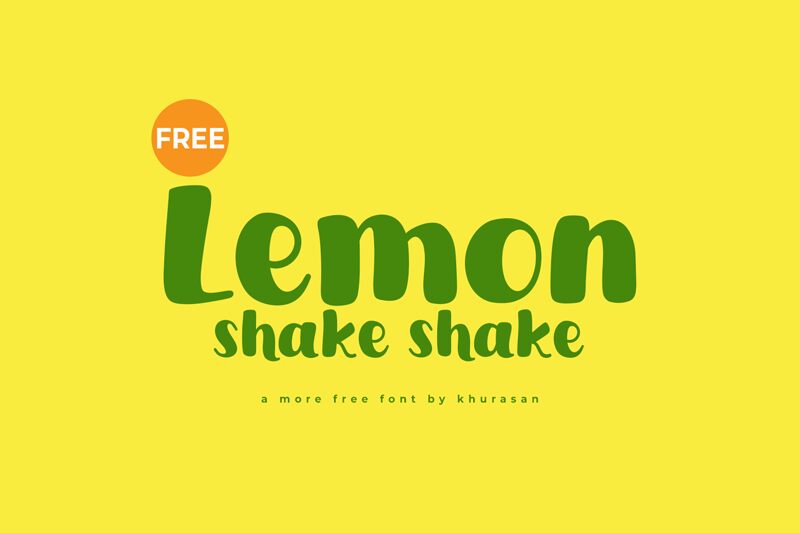
Lemon Shake Shake
Lemon Shake Shake, a captivating display font designed by Khurasan, exudes a delightful and whimsical charm. With its bold, playful strokes and a touch of script-like flair, this font effortlessly captures the essence of a vibrant, refreshing lemonade shake. Its dynamic, hand-drawn appearance lends an organic, artisanal feel that instantly invites the viewer to indulge in its playful energy.
This font's versatility shines through its ability to elevate a wide range of design projects, from eye-catching headlines and product branding to cheerful event invitations and playful illustrations. Its bold, attention-grabbing presence makes it an ideal choice for creating captivating titles, logos, and attention-grabbing typographic compositions that demand a second glance.